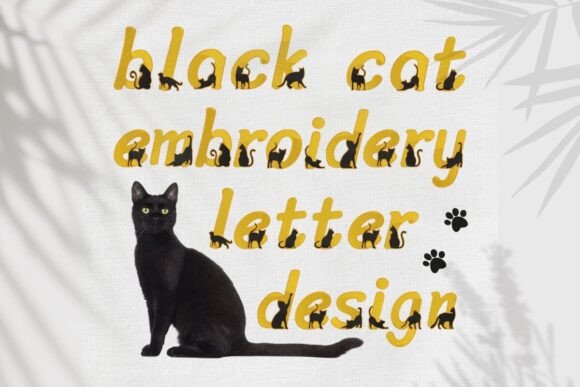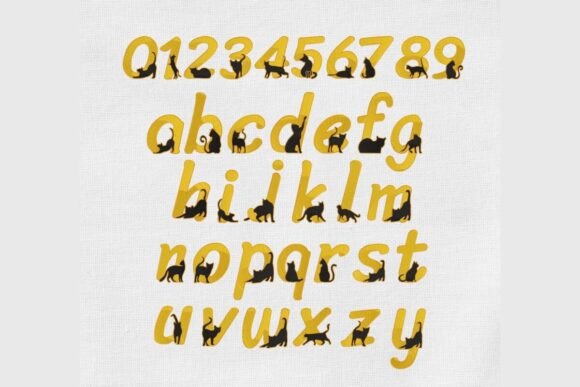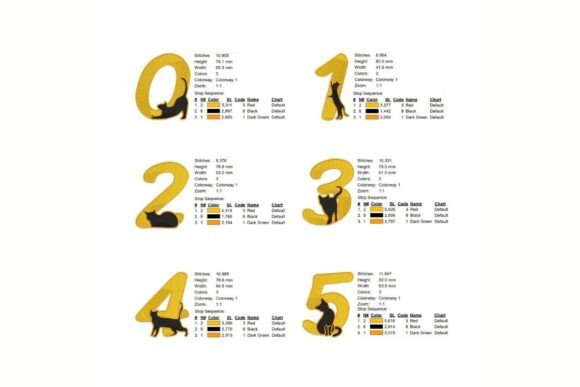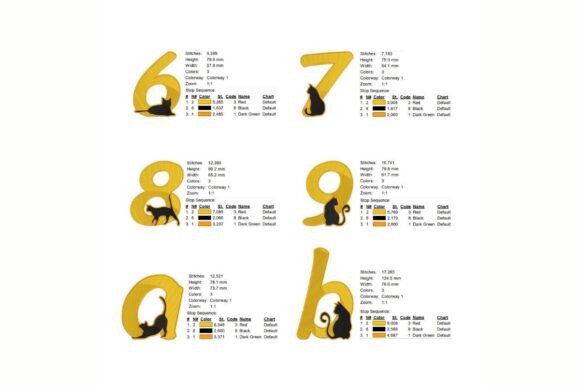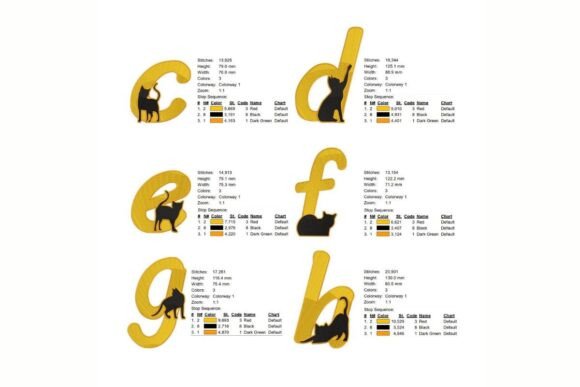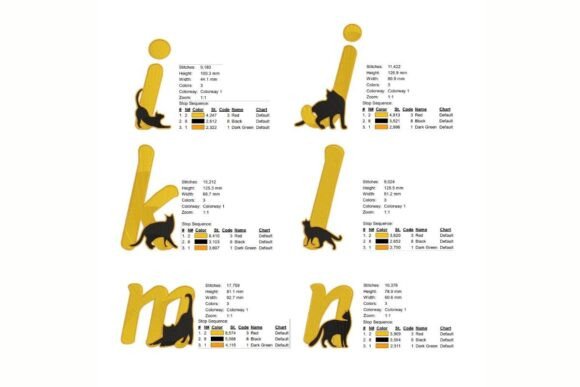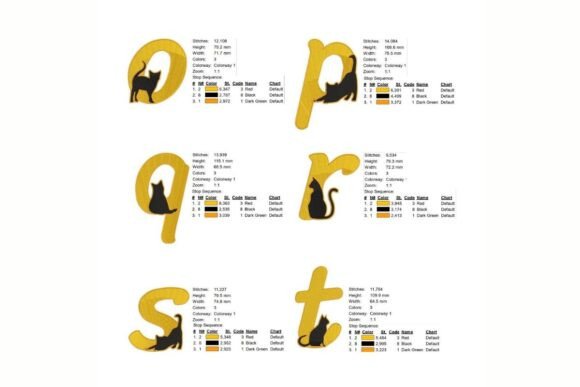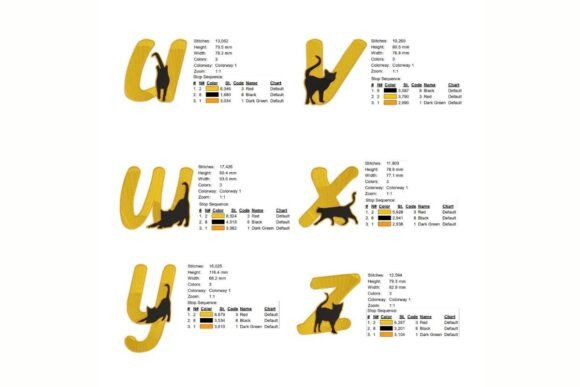
Black Cat Embroidery Fonts a-z, 0-9
Add a touch of cuteness and charm to your designs with our adorable Black Cat Embroidery Fonts! Each one is beautifully detailed with the shape of a black cat in various poses, adding a lively and unique touch, making them perfect for decoration, fashion projects, Or even your own creative DIY activities.